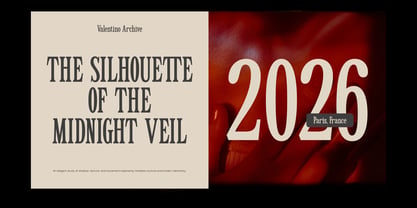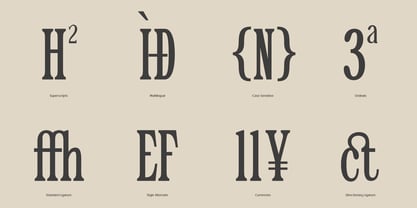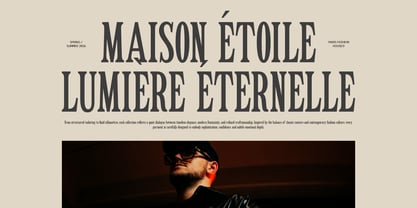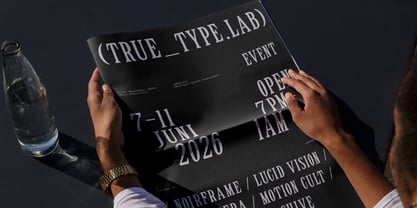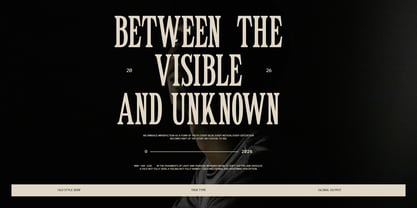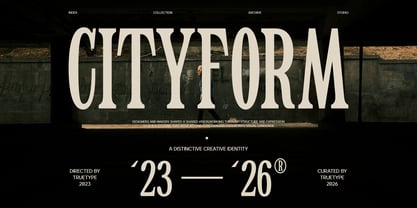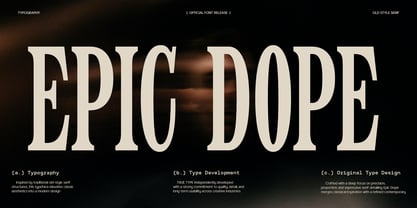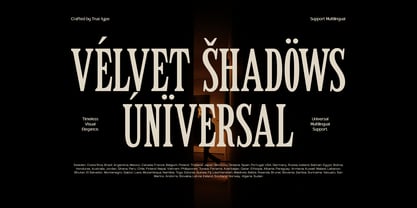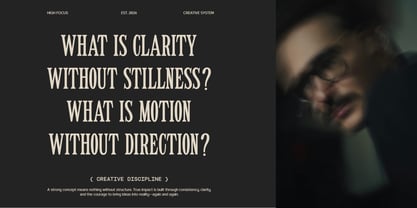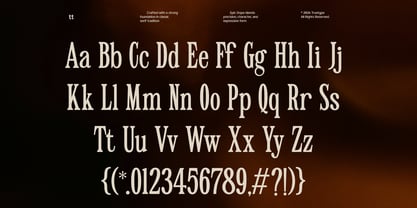
TRT Epic Dope
The TRT Epic Dope Font Family was designed by Yusilo Oktaprima Ardani and published by True Type Lab. TRT Epic Dope contains 2 styles and family package options. More about this family
TRT Epic Dope is an elegant condensed serif typeface that blends classic sophistication with modern character. Featuring tall proportions, refined high-contrast strokes, and distinctive serif details, it creates a strong visual impact while maintaining excellent readability.
Perfect for luxury branding, logos, editorial headlines, packaging, fashion projects, restaurant identities, and premium marketing materials. Its narrow structure allows for bold, space-efficient compositions, making every design feel stylish, confident, and memorable.
Whether you're creating a high-end brand identity or eye-catching display typography, TBJ Epic Dope delivers timeless elegance with a contemporary edge.